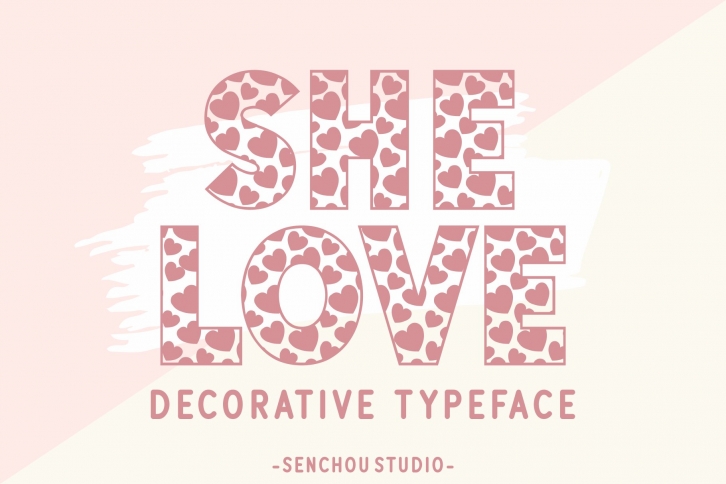
Say Hello to She Love! is a romantic decorative font. It looks cute and fun on a variety of design ideas and it will most certainly elevate each of your creations.